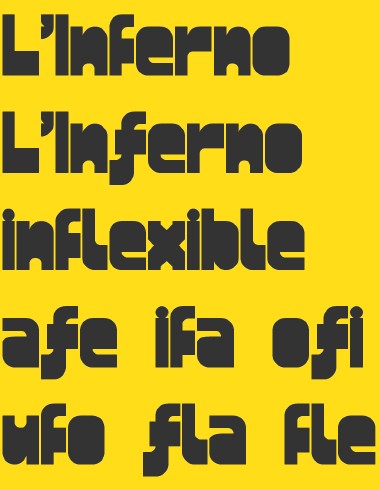
• Some alternative glyphs typing: "Ä" (extra f), "Ë" (second f) and "Ï" (second F). Thanks will.i.ૐ.
Some alternative glyphs typing: "Ä" (extra f), "Ë" (second f) and "Ï" (second F). Thanks will.i.ૐ.
I've reduced the big lower arc of the "j". It seems better, I think. Other sugestions, please?
I love the feeling of the first sample. Shows for what the font is made. Well done!
ps: DdDd? A measure because of space?
pps: 'E' is awesome!
@Tylo: The "Ddouble" was a mistake (trembly finger, I know). Do you think I must rescate the first "j" so wide? I liked it but I think it crashed the legibility of the words what begans with it. What is your opinion, please?
Your j revision is a smart one. Chopping the friendly tail, though a certain loss of funkitude, aids in legibility for words beginning with j and, even more, improves the setting of words with j in the middle. The relatively huge negative space the first one creates mid-word is not a decent tradeoff for such a stylish design. Plus, it matches better with l.
I suggest you fatten the diagonals of your x as much as possible without losing the form. With counters in every quadrant, it appears a bit light and slender in comparison.
I also want to see what your f looks like with an arm as fat as the tail of your j and a half-brick cross stroke. Your t works pretty well as is, largely due to cross stroke alignment with the x-height.
@will.i.ૐ: Thanks a lot for your opinions. I've changed the "x" and I've maked a new "f" more similar to the "j", but I do not sure about their legibility. I put a sample... I need more comments, please.
The new "f" is at the "Ä".
Sorry, I couldn’t paint my words as clearly as an image does. Here’s what I meant. But I also like this new ƒ as a groovy alternate, for use where appropriate.
I think the deeper design criterion I am pointing to is how your use of filled or partly filled counters creates a type of reverse contrast (thick horizontal/diagonal strokes paired with thinner stems). So distinctive to my eyes, I want to see the pattern applied consistently throughout the font – as often as possible, that is, without creating other legibility issues.
@will.i.ૐ: Thaaanks a lot for your continuous help and dedication, I've added your sugestions for the "f" and "F" glyphs into the font.
I just love the heaviness. It works well for text.
I add one sample. I like it.